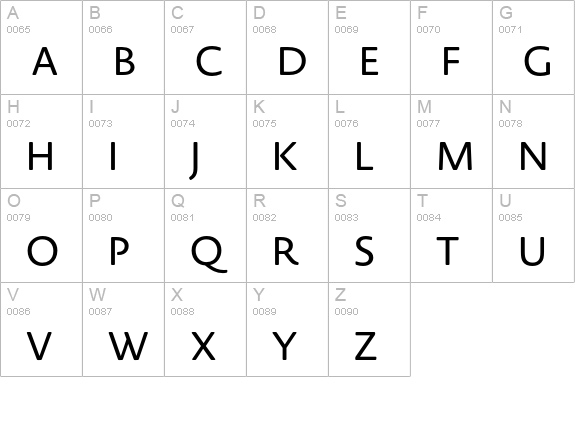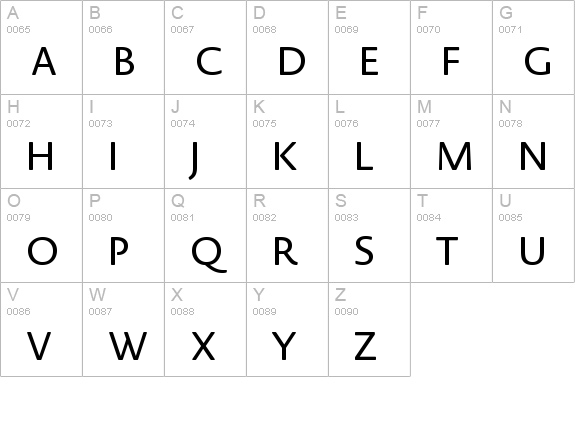
Novel Sans Rd Pro Regular is the standard, neutral variant in the Novel typeface family \xE2\x80\x94 well suited to general body text, paragraphs, and standard typographic work.
Novel Sans Rd Pro Regular font is a modern and versatile typeface that exudes elegance and sophistication. Its clean lines and balanced proportions make it perfect for a wide range of design projects, from branding to editorial work. The font's subtle yet distinctive style adds a touch of sophistication to any text it graces. What sets Novel Sans Rd Pro Regular font apart is not only its timeless design but also its accessibility. This high-quality font is available for free download at FontsMarket.com, making it easily accessible to designers and enthusiasts alike. Whether you're creating a sleek logo, designing a stylish website, or crafting a professional document, Novel Sans Rd Pro Regular font is sure to elevate your project with its refined aesthetic and impeccable legibility.